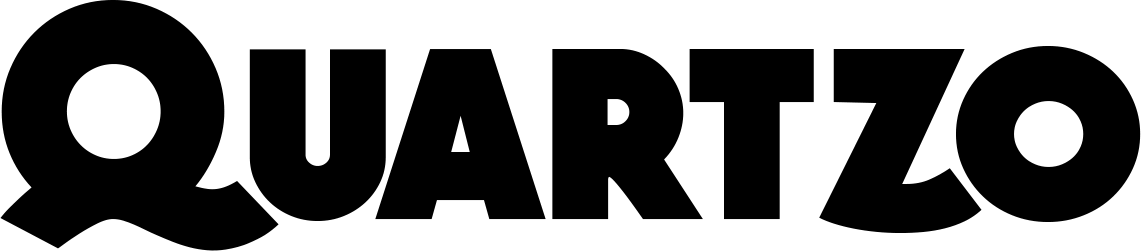
Quartzo Font
Get your hands on this, very different sans serif, fat and modern font! What’s special about this particular font is that you can say, it’s a mix of sans serif and modern rounded font, that is unique. The Quartzo font will be the best approach when it comes to gaining attention!
You will find that it contains, bold and all-caps letterforms that are perfect for most typographies, and designs and can be used for UI designs, websites, apps, books, and more.